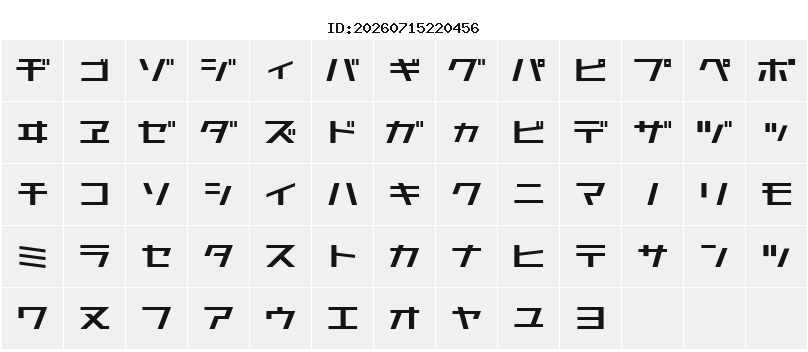
AstraKfsb07MediumO Preview
• Font Name: AstraKfsb07MediumO
• Font ID: Macromedia Fontographer 4.1J AstraKfsb07MediumO
• Full Font Name: AstraKfsb07MediumO
• Version: Macromedia Fontographer 4.1J 06.12.17
• PostScript Name: AstraKfsb07MediumO
• Character Count: 127
About AstraKfsb07MediumO.ttf
AstraKfsb07MediumO.ttf is a modern, elegant sans-serif font designed for ultimate readability and visual harmony. Perfect for branding, headlines, web design, and print materials.